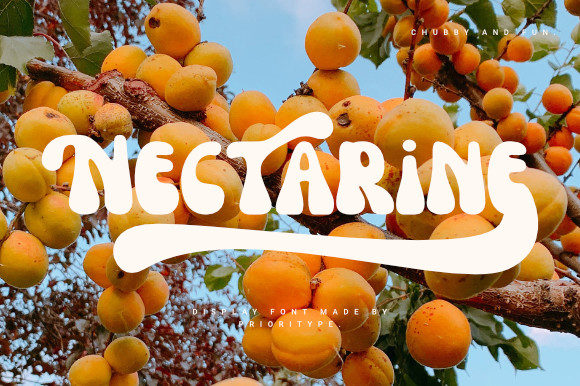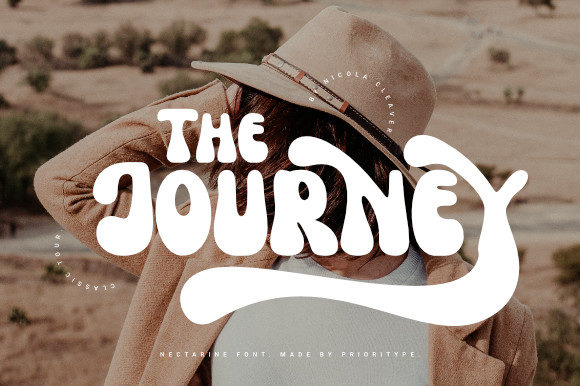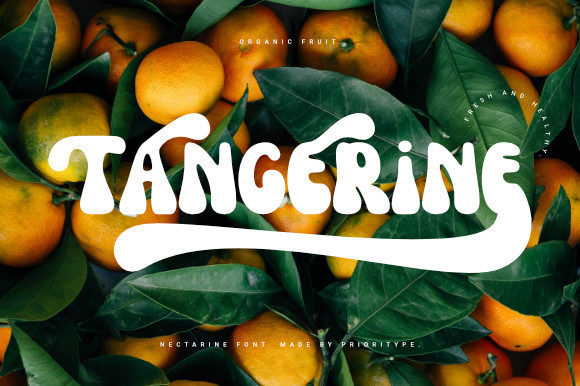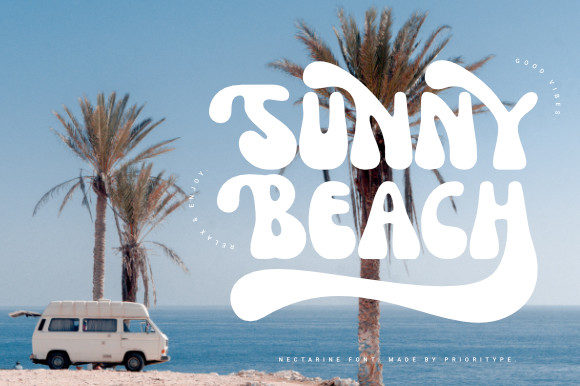
Nectarine Font: A Retro Display Font for Playful Poster Design
About the Nectarine Font
The Nectarine Font is here to transform your projects with its distinctive character and style. Nectarine is a cool and retro styled display font. This font is PUA encoded which means you can access all glyphs and swashes with ease! Add it confidently to your favorite creations and let yourself be amazed by the outcome generated.
Nectarine’s retro styling makes it ideal for headlines, logos, and short text elements in posters or packaging design. Its playful energy works well for brands targeting a younger demographic or those with a vintage aesthetic. Avoid using Nectarine for body copy or lengthy paragraphs; its unique character is better suited for impactful visual statements.
Pairing Nectarine with a clean sans-serif like Open Sans for body text creates a strong visual hierarchy. For a more vintage feel, consider pairing it with a serif font like Playfair Display. A geometric sans-serif such as Montserrat could add a modern counterpoint to Nectarine’s retro charm.
Nectarine projects a bold, friendly, and slightly nostalgic personality. It’s not suited for projects requiring high readability or a serious, formal tone.